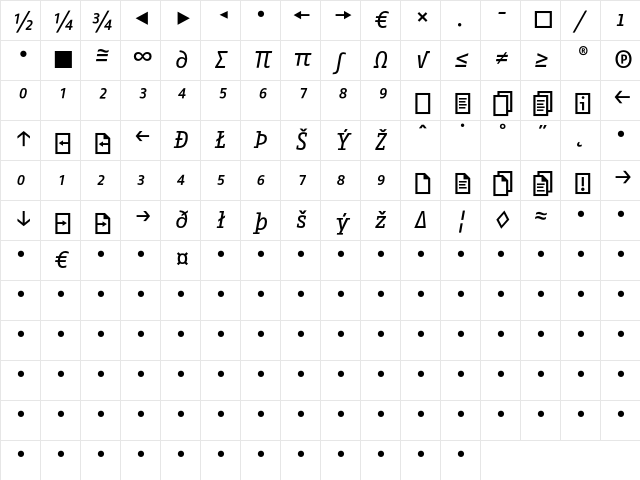
Fago Office Serif Regular Exp Italic
Style: Regular Exp Italic
Complete Fago Office Serif Regular Exp Italic glyph index. Displaying only characters natively supported by Fago Office Serif Regular Exp Italic font.
Design Context for Fago Office Serif
Fago Office Serif carries the refined structure of traditional serif typography, with bracketed terminals and considered proportions that communicate credibility and craft. The slanted form adds forward momentum and visual energy.